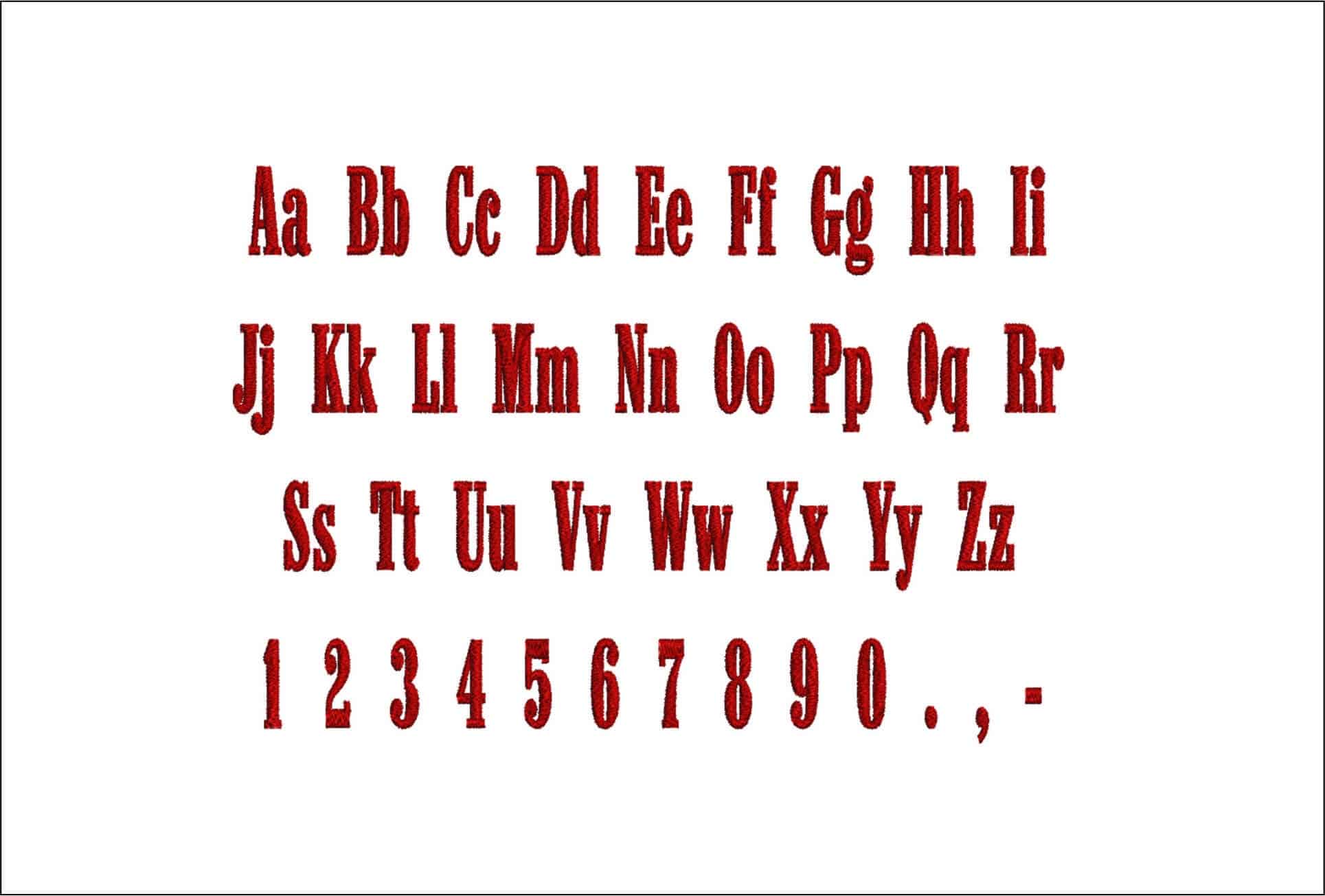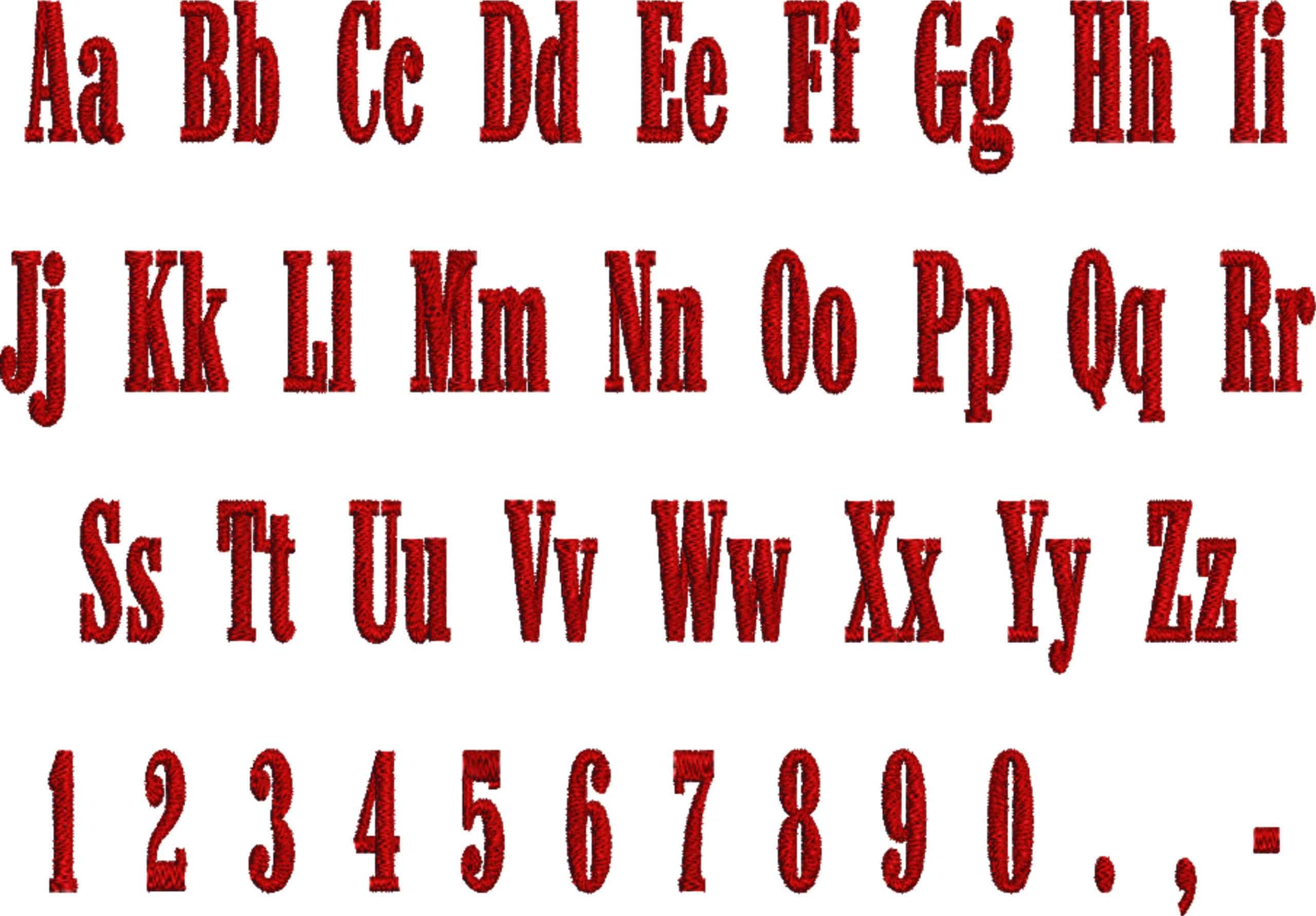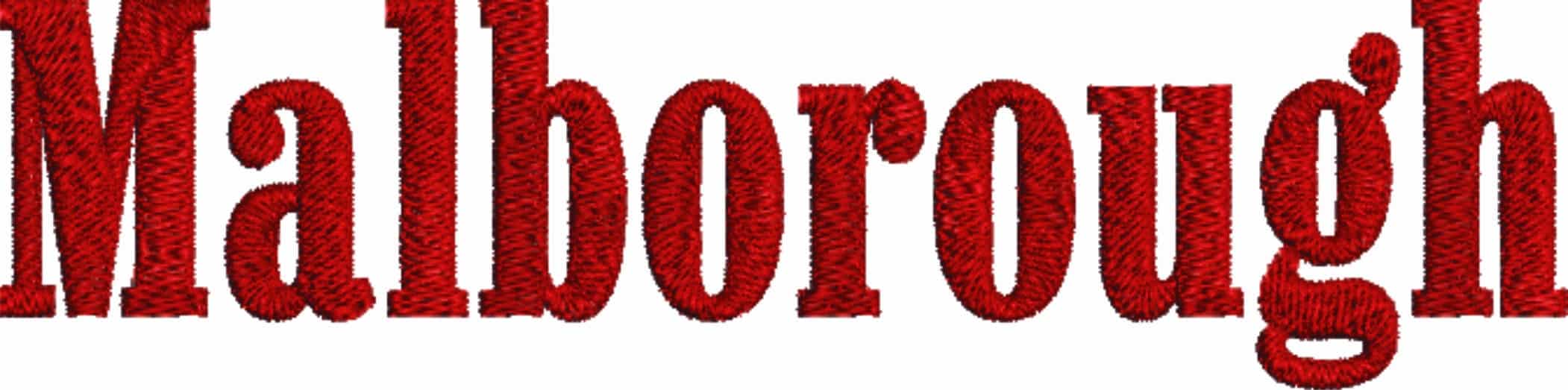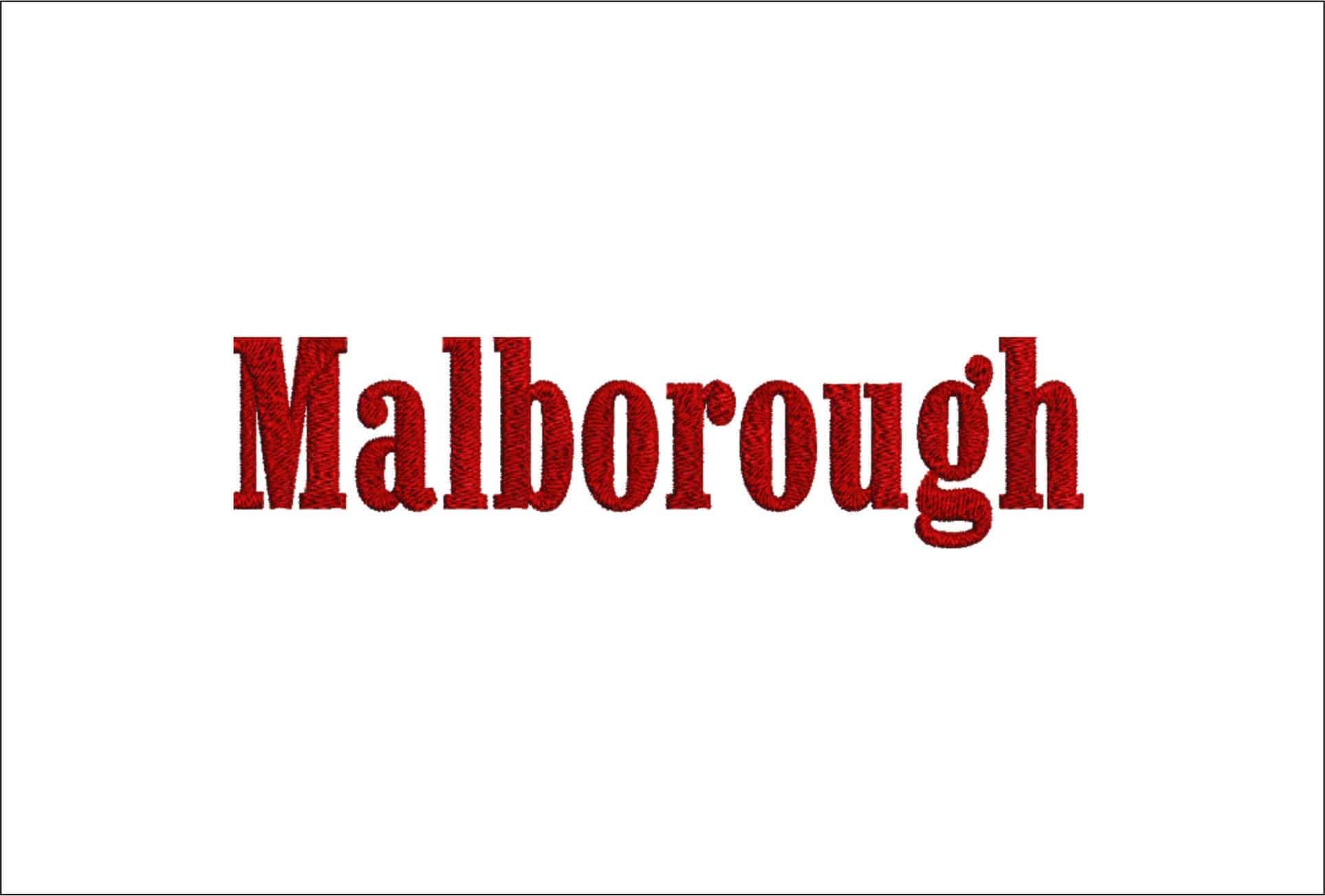
A crisp serif embroidery alphabet with a polished, traditional look for monograms, names and neatly finished personalised stitching.
Bring tailored lettering to monograms and personalisation with the Malborough embroidery font set, a serif alphabet with a clean, traditional presence. The sampler shows full uppercase and lowercase letters, numbers, and punctuation in a strong red stitch-out, so you can see the sharp contrast between the sturdier capitals and the slightly softer lowercase. It suits embroiderers who want names, initials and short words to look formal without feeling fussy.
This style works especially well on shirt cuffs, pyjama pockets, napkins, tote bags and the chest of a classic sweatshirt. The serif details give single initials a proper monogram feel, while full names and dates still read clearly thanks to the even, upright shapes. If you want lettering that looks neat on everything from household linens to everyday clothing, Malborough has that tidy, composed finish.